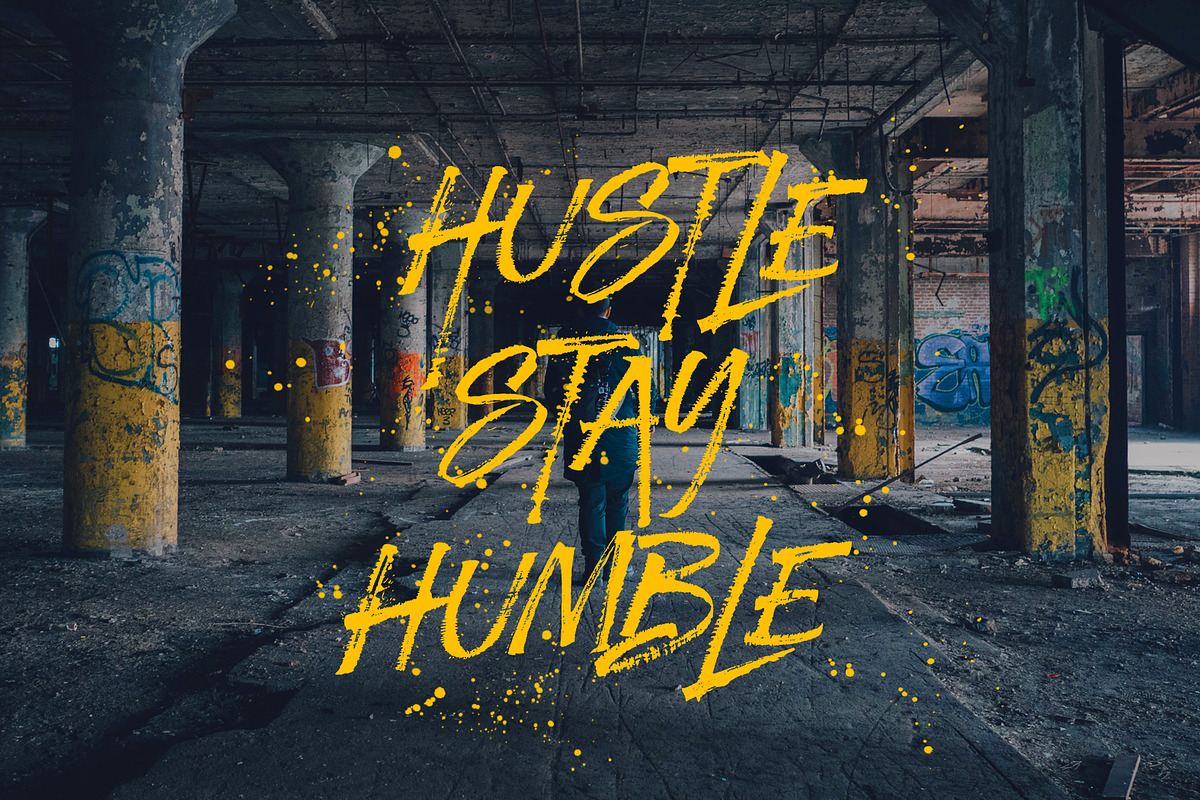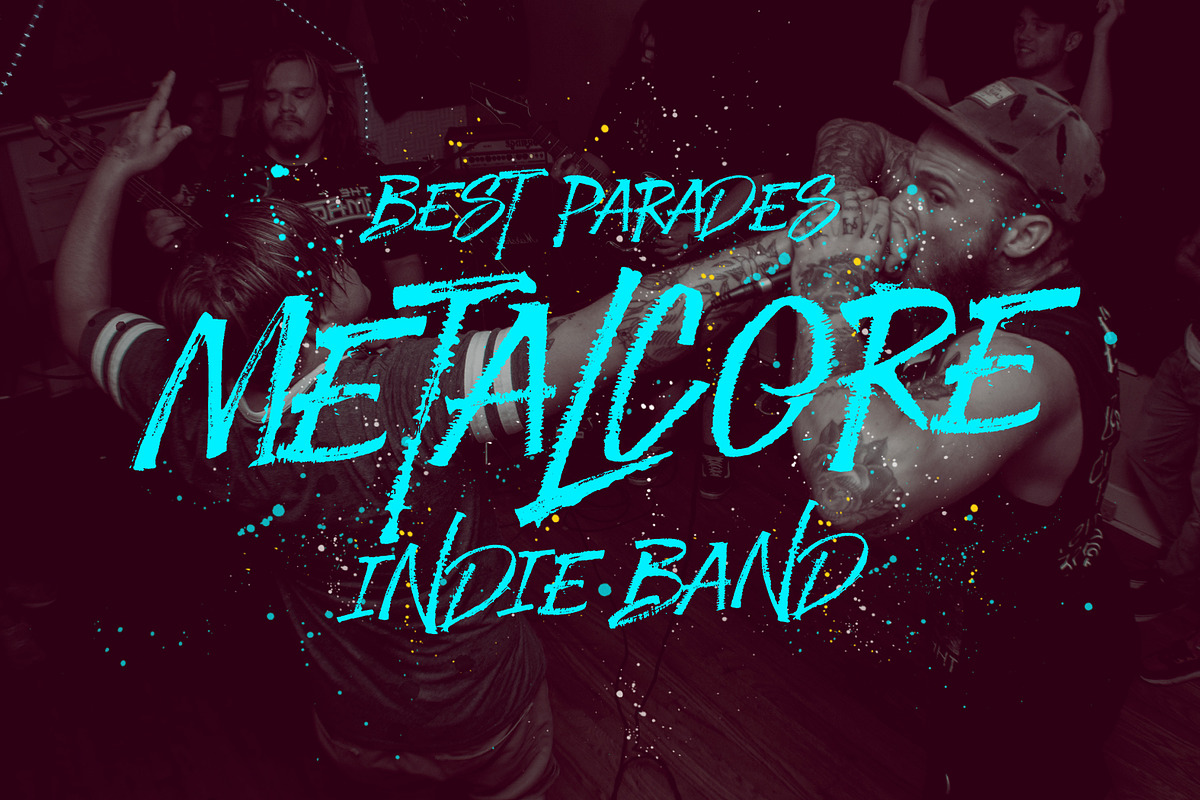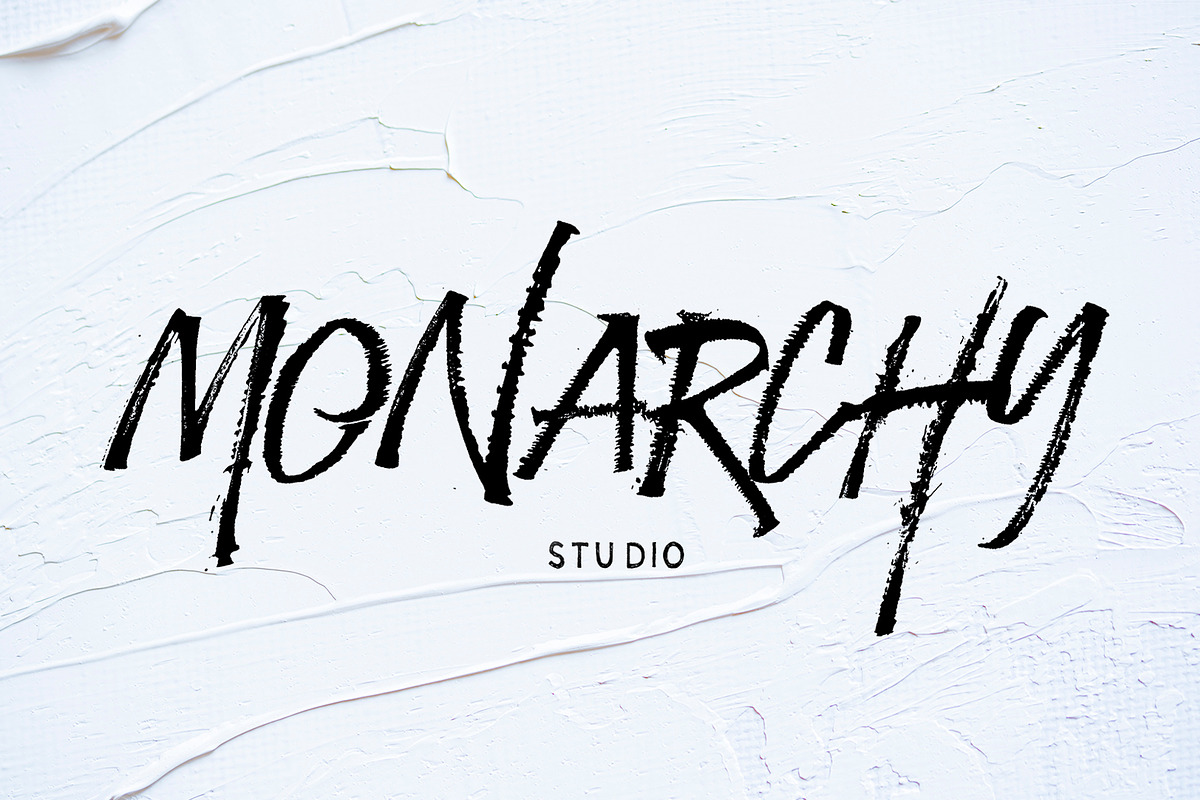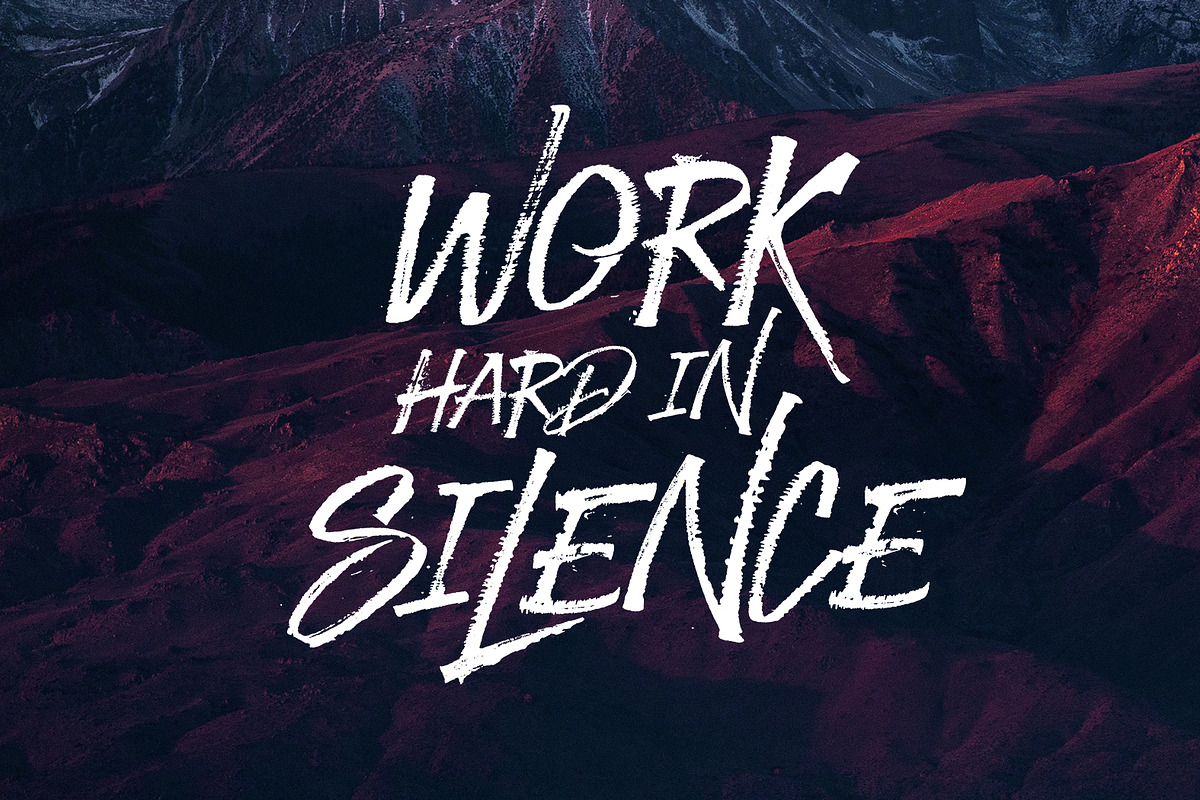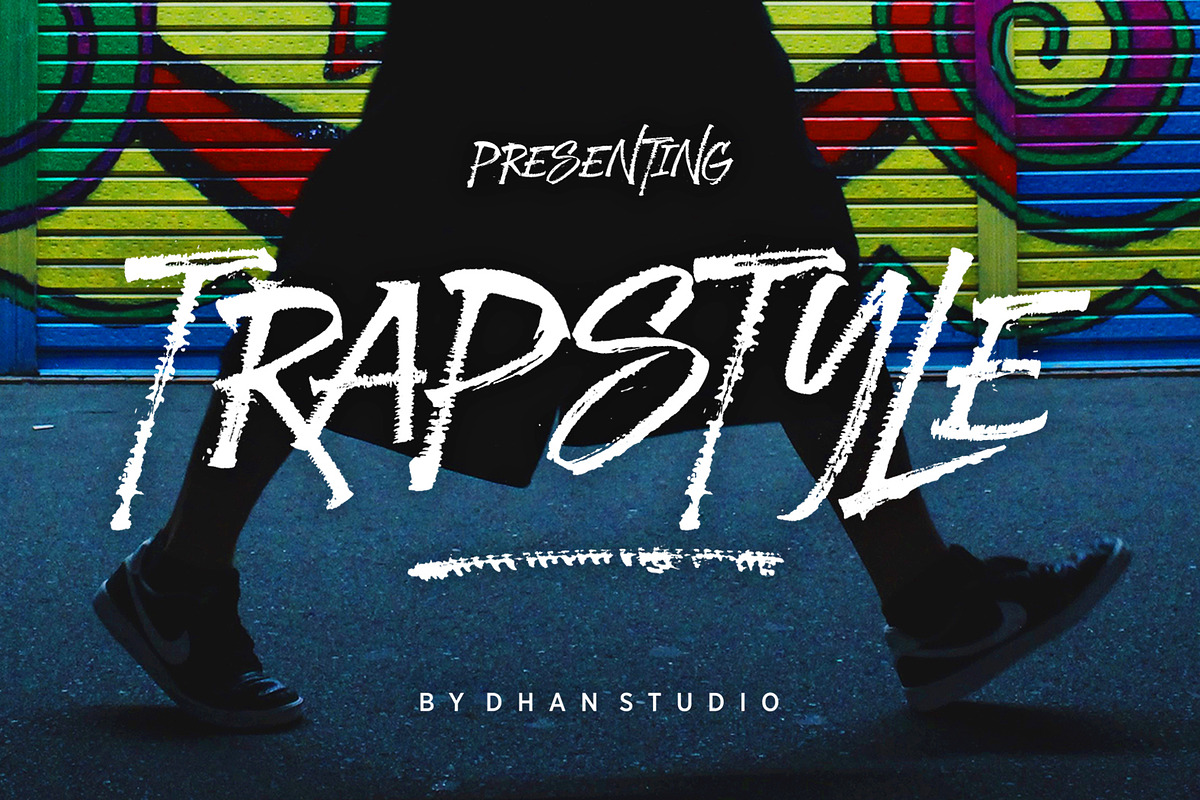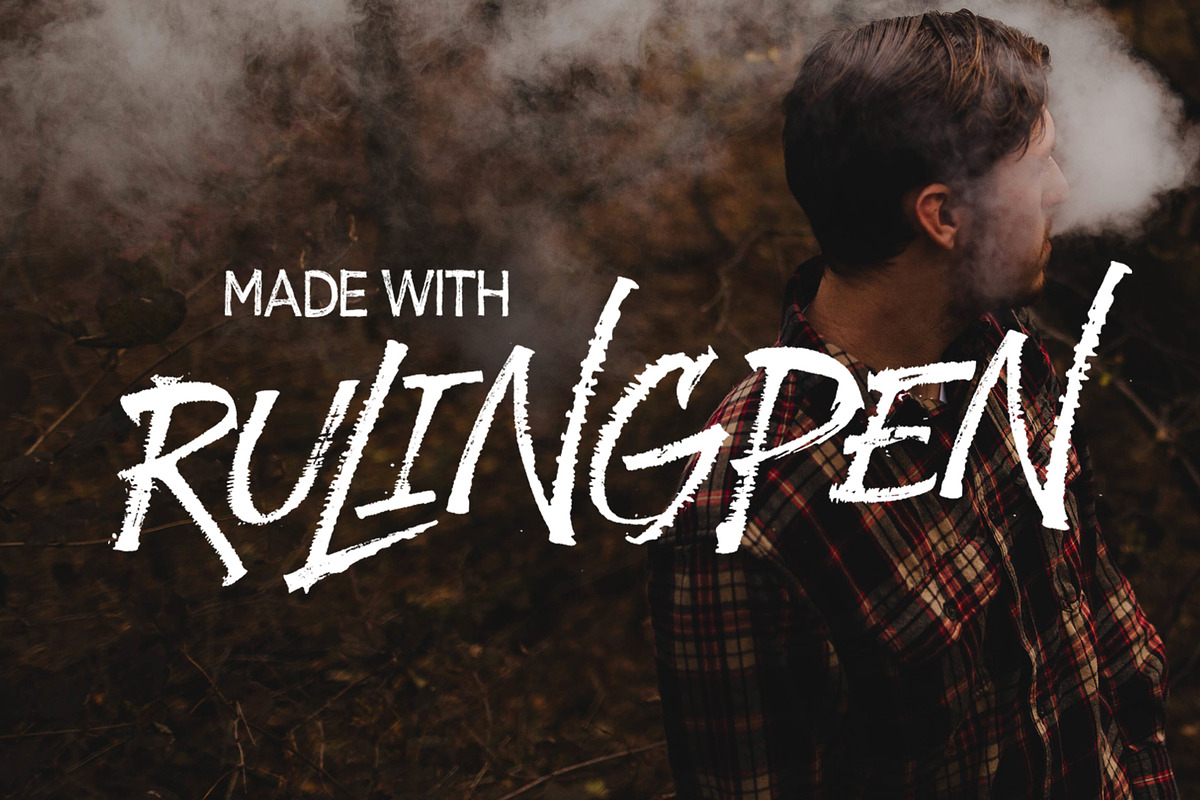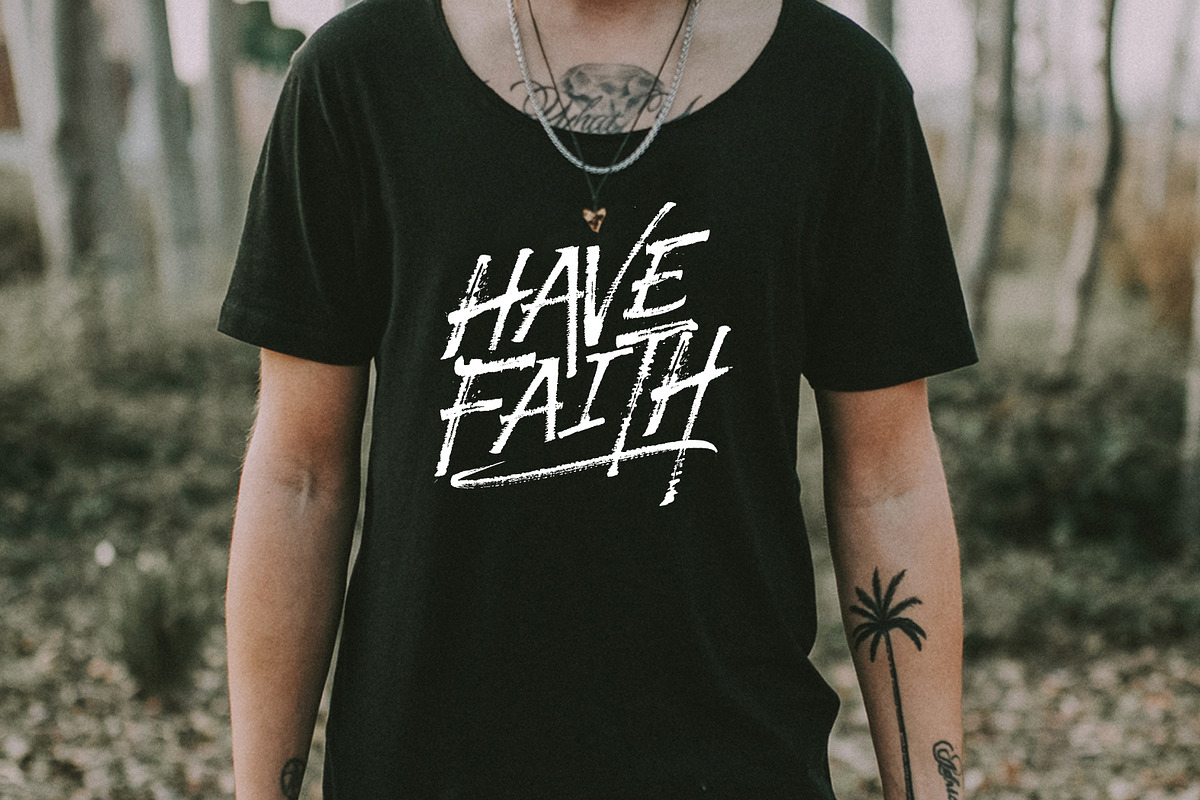
Trapstyle Font
Trapstyle Font by Dhan Studio is a font selected for branding, posters, packaging, typography.
- TRAPSTYLE comes with alternates character, ligature, upper and lowercase characters, punctuation, numerals.
- Also included is a bonus extras swashes, handmade designed to perfectly for headlines and short texts.
- TRAPSTYLE comes with alternates character, ligature, upper and lowercase characters, punctuation, numerals.
- Also included is a bonus extras swashes, handmade designed to perfectly for headlines and short texts.
- TRAPSTYLE comes with alternates character, ligature, upper and lowercase characters, punctuation, numerals.
- Use it for magazines, t-shirt, packaging, logos, advertising, quotes, branding, posters, editorials, cover artwork, movies, websites, etc Ho
Why Trapstyle Font is worth a look
Trapstyle Font by Dhan Studio fits naturally into Branding, posters, packaging, typography.